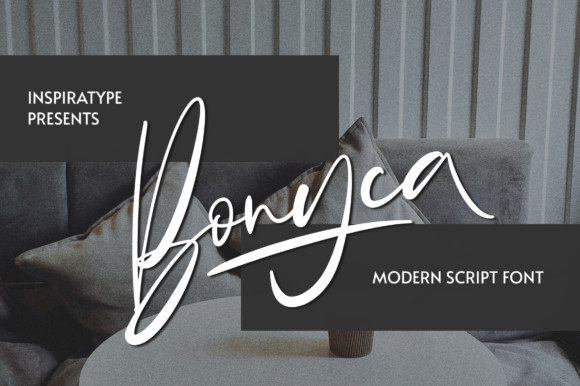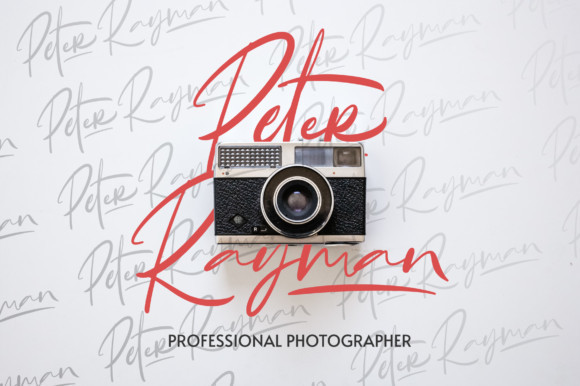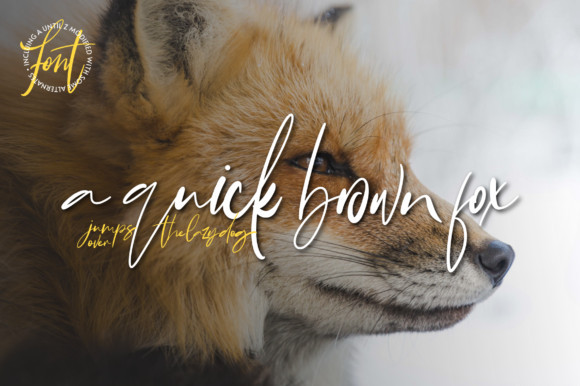
Bonyca Font
Bonyca is a friendly, modern and relaxed handwritten font. Warm, all round and jolly, this font will turn each of your project ideas into real works of art. Have fun with this beautiful font and explore its endless variations.